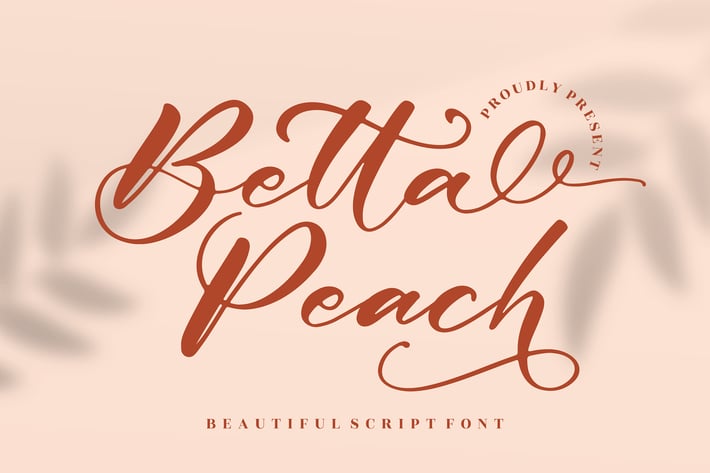
Betta Peach Script Font
Betta Peach is a soft and charming script font designed to add warmth and elegance to your creative work. Its fluid strokes and gentle curves create a beautifully handcrafted feel—perfect for designs that need a romantic, stylish, and feminine touch. Whether used for digital content or printed branding, Betta Peach delivers a sweet and polished aesthetic.
Smooth, flowing handwritten script
Lovely swashes and natural stroke movement
Highly readable in both large and small text
Ideal for elegant and feminine visual themes
Branding & logo design
Wedding invitations & event stationery
Social media visuals
Quotes & calligraphy compositions
Packaging & product labels
Beauty, fashion, and lifestyle branding
Soft curves made to elevate your sweetest designs.